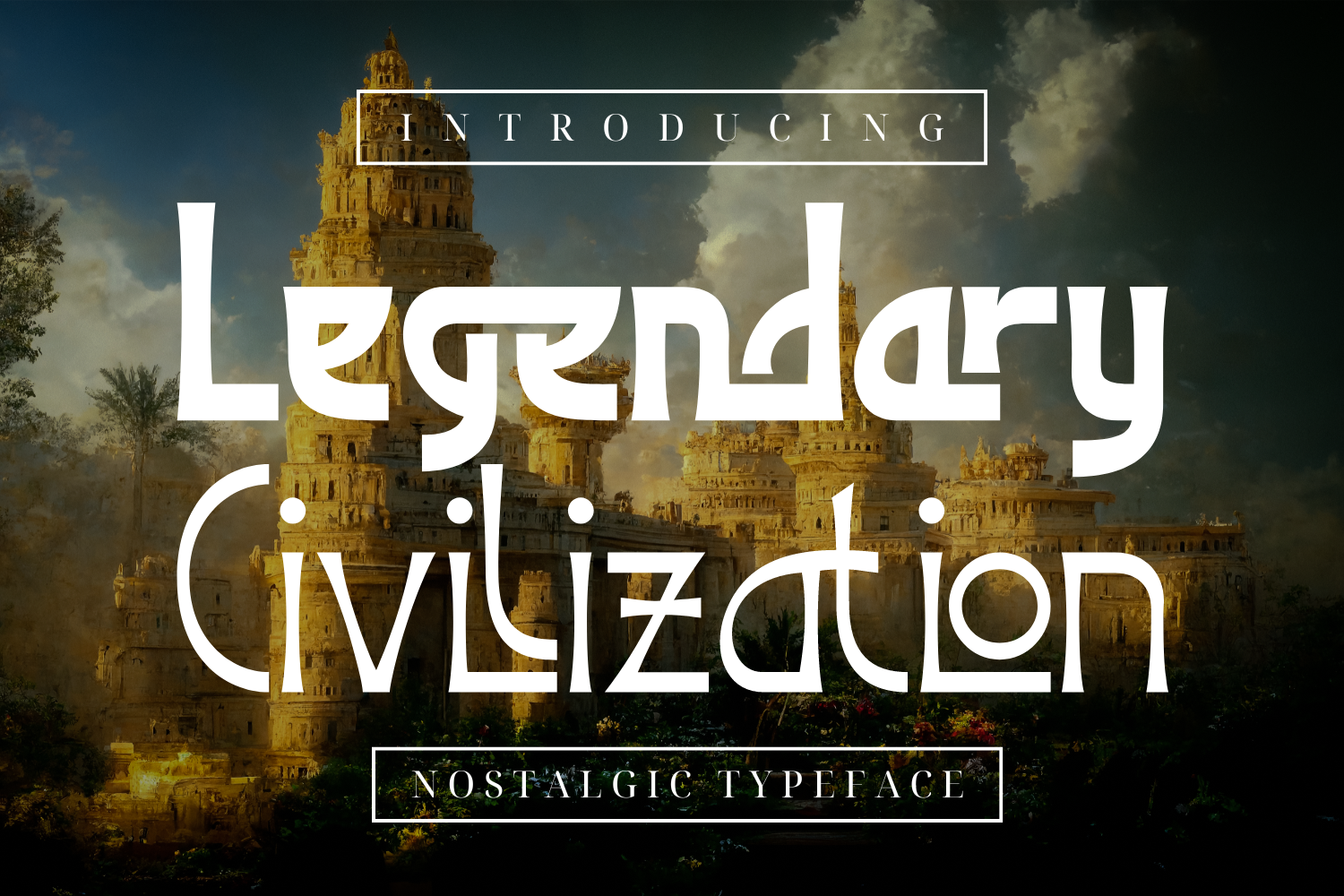
Legendary Civilization Font
Legendary Civilization Font - Back to the movement in the decorative arts and architecture that originated in the 1920s and developed into a major style in western Europe and the United States during the 1930s. Which combining classic typography with awesome features bring classic touch on this decade :), This font can be used on many product designs of various types such as drink bottles, coffee shops, fashion products, book covers, product labels, product logos, bakery etc.
Legendary Civilization was built with OpenType features and includes 100 ligatures, alternate, numbers, punctuation, and it also supports other languages.
ac ad al an ar as at au av be ca ce ch co ct de di ea ec ed ee el em en ep er es et fe fo fr ge ha he hi ho ie ic il in io ir is it ju ke la le li ll lo ly ma me mi nc nd ne ng no nt ns oc of om on oo op or ot ou ow pa pr ra rd re ri ro rs rt se sh si so ss st ta te th ti to tr tt um un ur ve wi wo
This font also included full set of:
- Special Ligatures